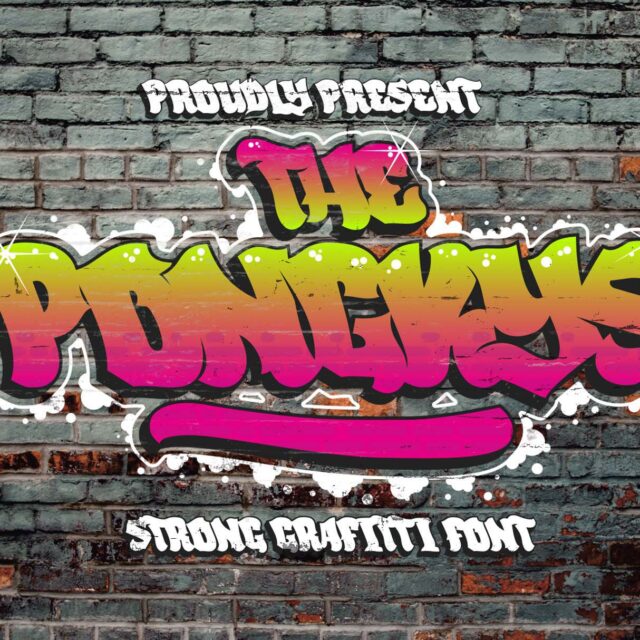
About The Ponkys
“The Ponkys” is a bold graffiti font. Fonts like this are often used to create eye-catching, bold, and expressive text in designs. Bold letterforms typically emphasize the message in your design, making them commonly used in street art, posters, or other designs that require strong and attention-grabbing typography. With “The Ponkys,” you can add an urban and bold touch to your design projects.